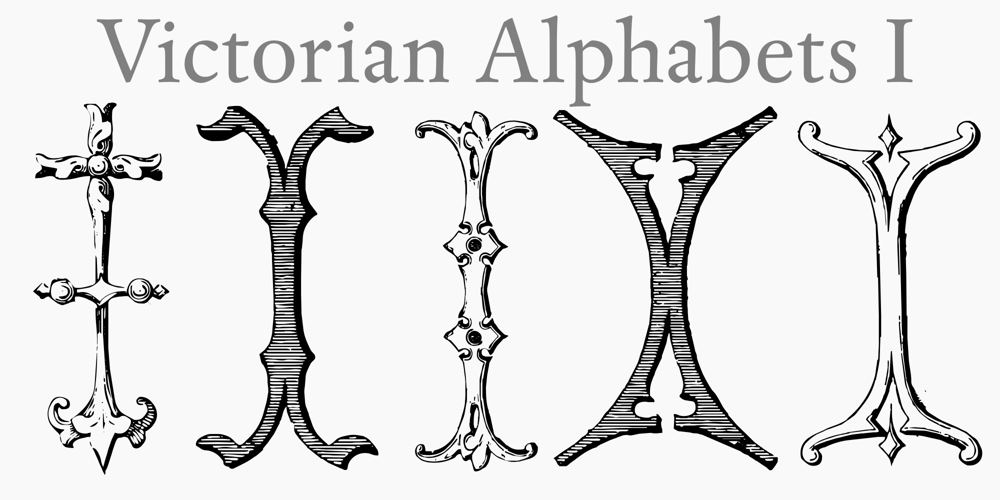
Victorian Alphabets I
Victorian Alphabets I font
Victorian Alphabets I Font Family was designed by Paulo W and published by Intellecta Design. Victorian Alphabets I contains 1 styles and family package options. Victorian Alphabets I is an incredibly cool and classic display font. Elegant and distinct, this font will most certainly elevate your creations. Add it confidently to your projects, and you will love the results. You have a great set of letters “I” using the uppercases, lowercases and numbers keys on the keyboard.